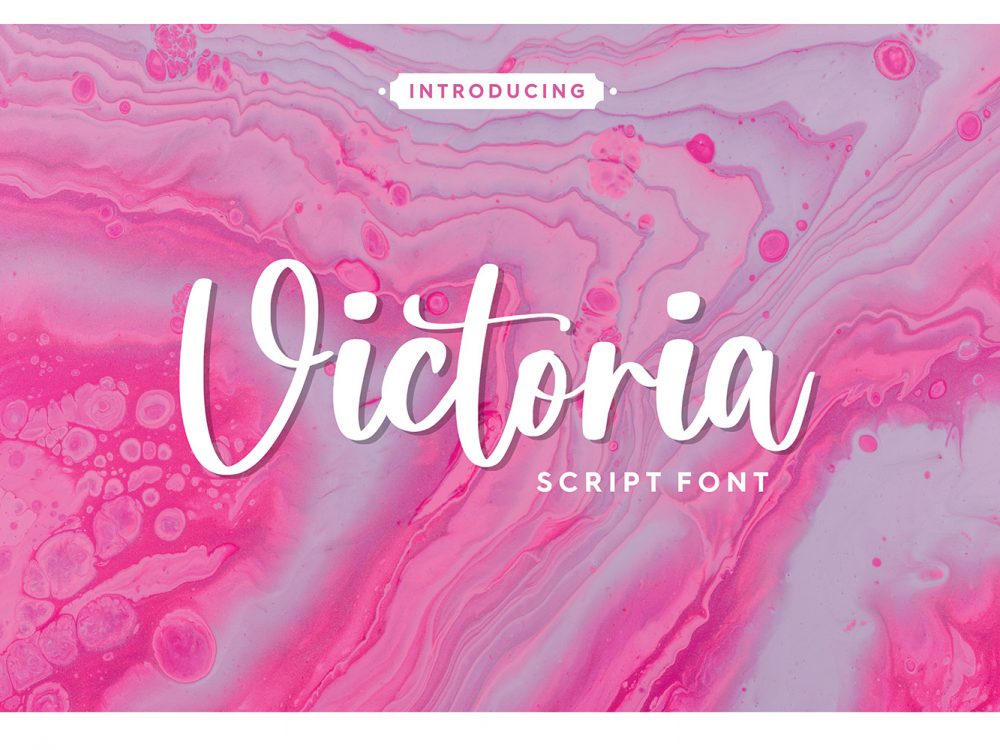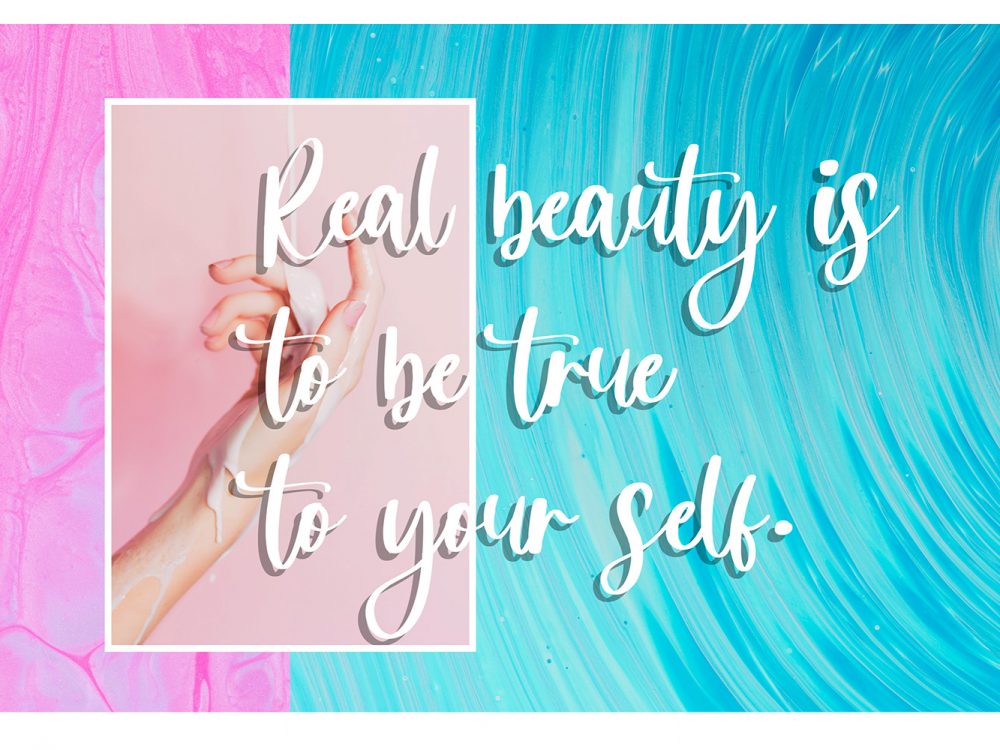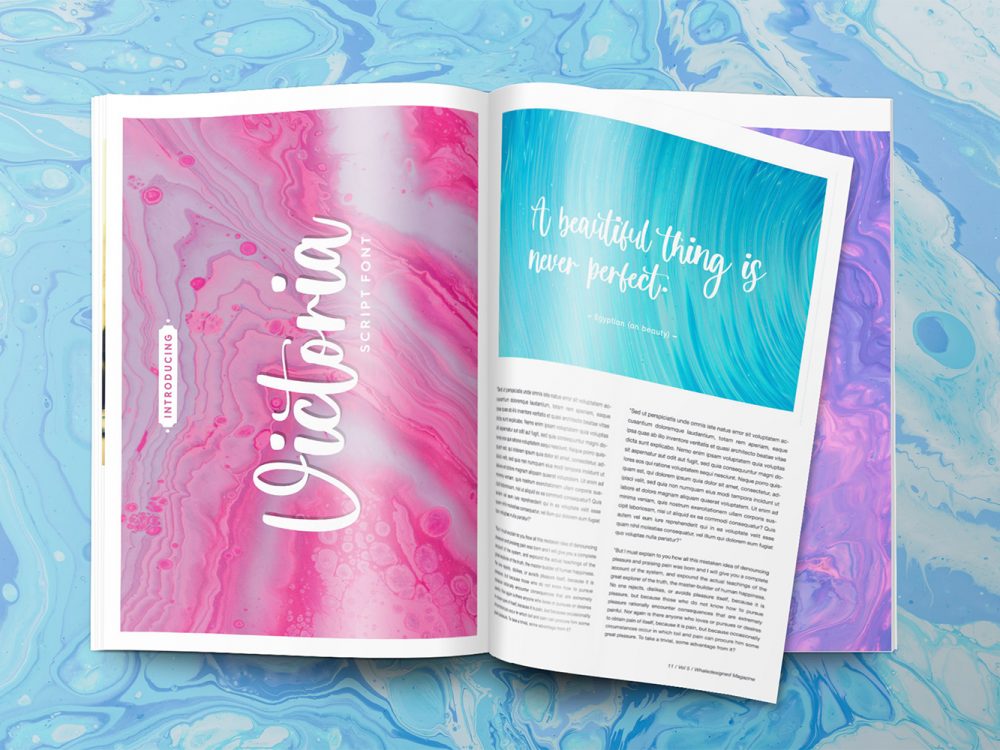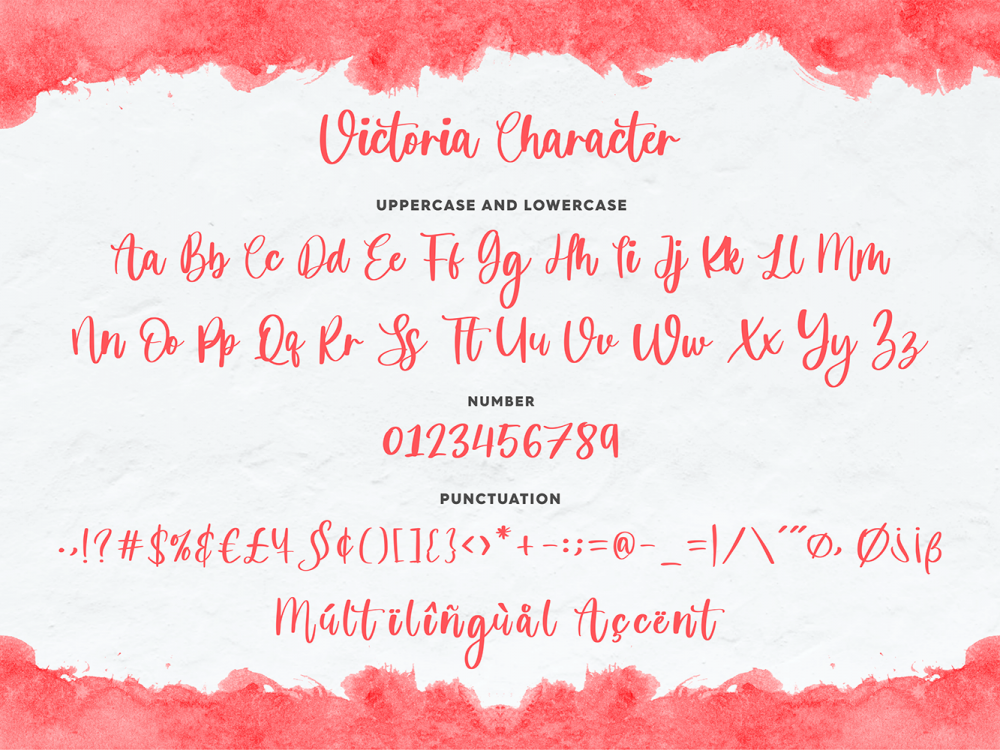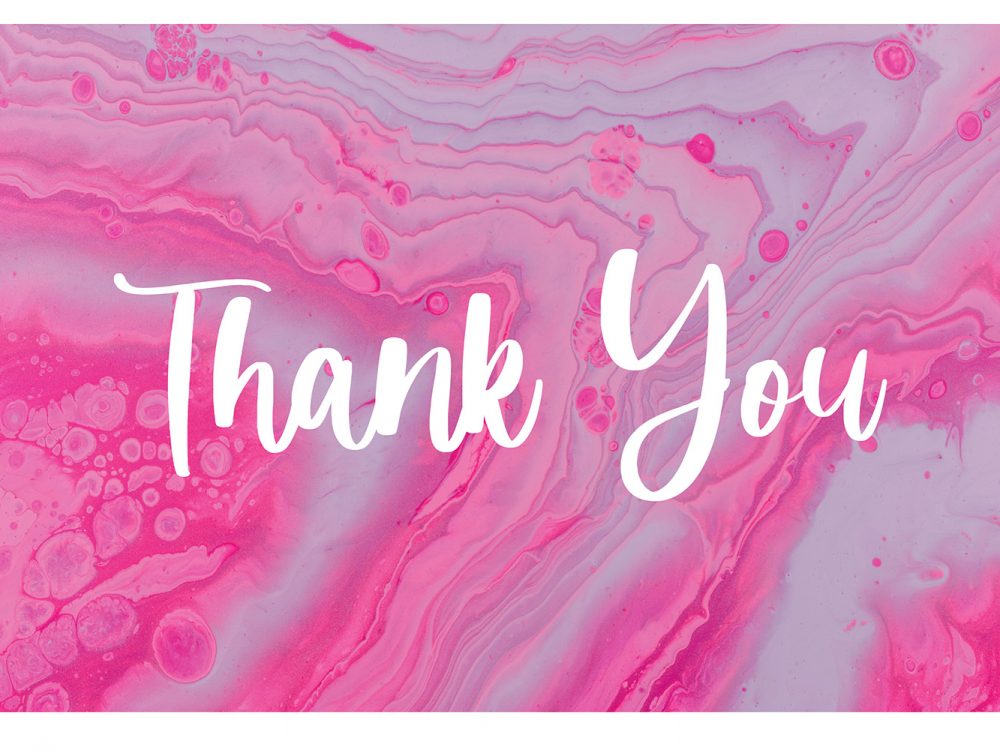
Victoria Script Font
Victoria Script Font is an interesting handwritten font that features a modern calligraphic style. This font is well suited for creating various design projects that require a scripted font. You can use this font to create interesting and memorable posters, wedding invitations, cards, branding, flyers, and more. Improve the quality and increase the popularity of your design projects using this font. If you like it don’t forget to check out the full version.